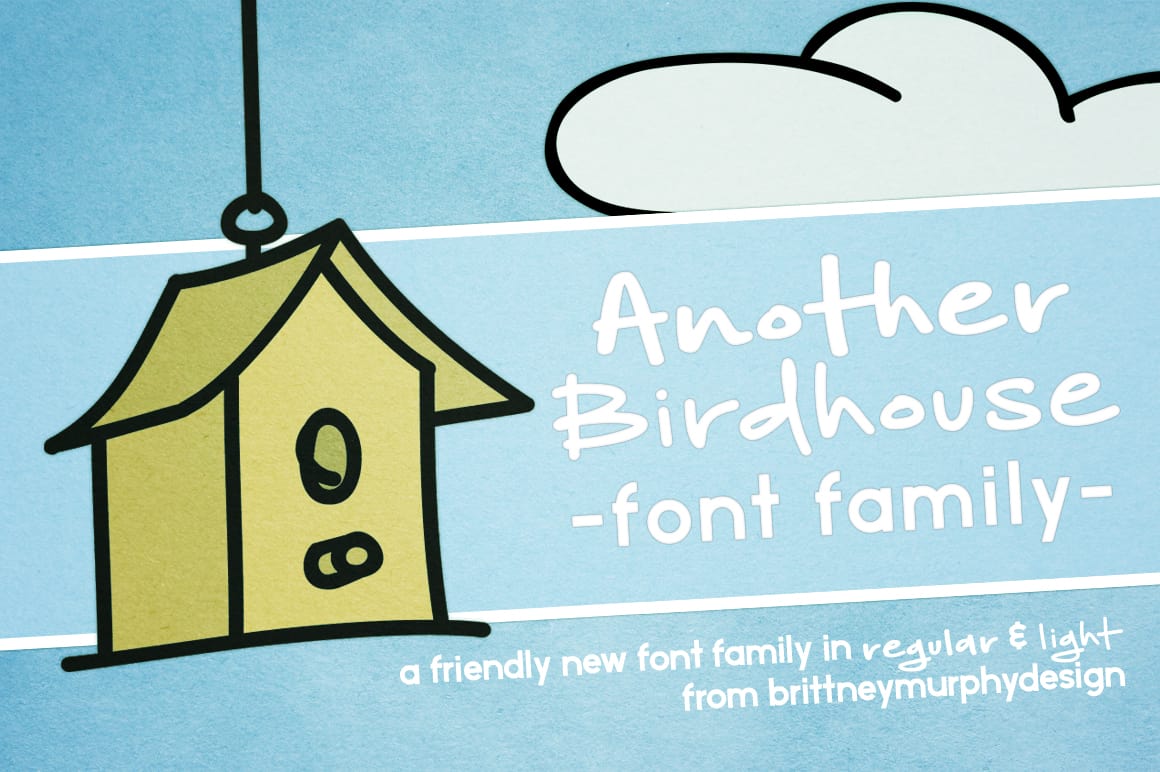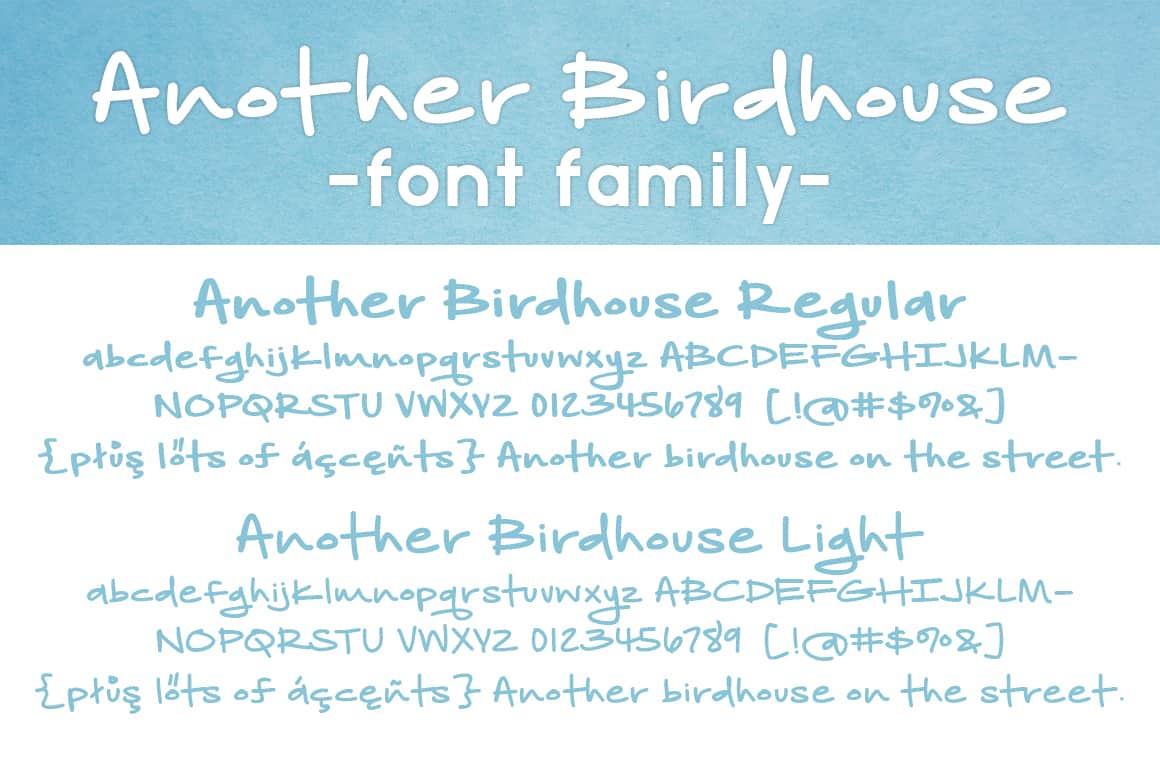
Another Birdhouse
Another Birdhouse Font Family
Another Birdhouse Letters Font Family
The Another Birdhouse Font Family is a friendly, handwritten font family created in 2016 by Brittney Murphy design. The font family includes two weights: regular and light. Both fonts have 343 characters, with extended Latin characters, accents and currency symbols. Great for cards, by-lines, and any of your graphic design projects.
Another Birdhouse
Another Birdhouse- Preview Image
Another Birdhouse Character Map